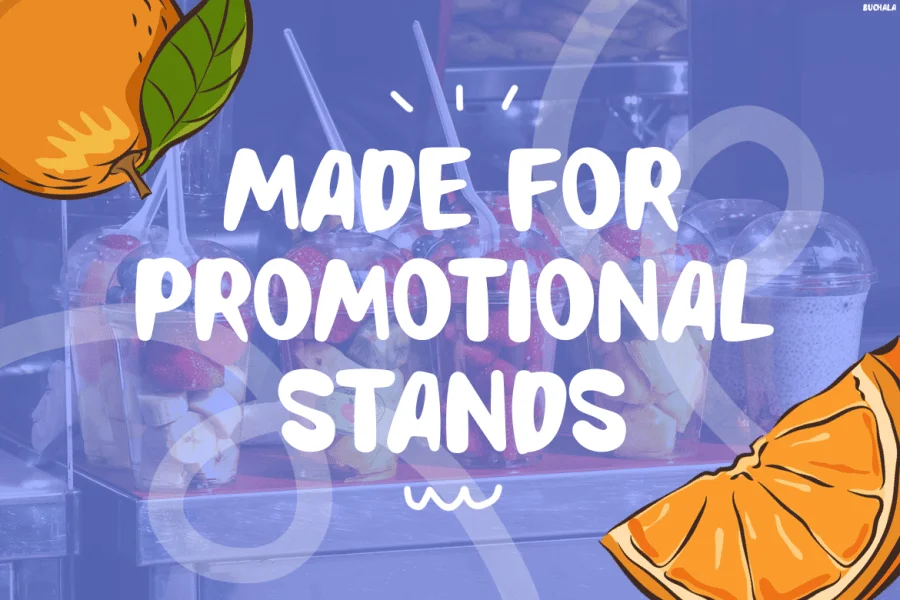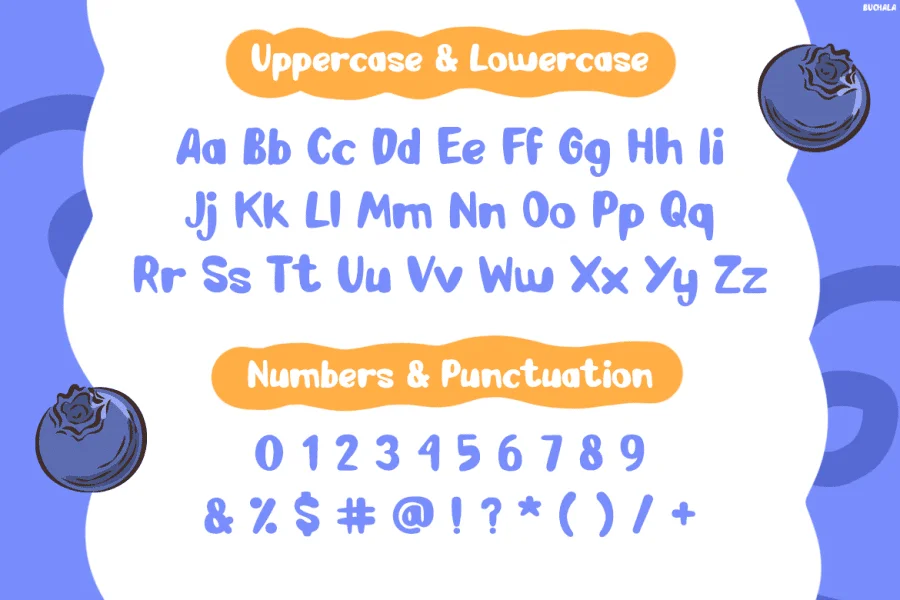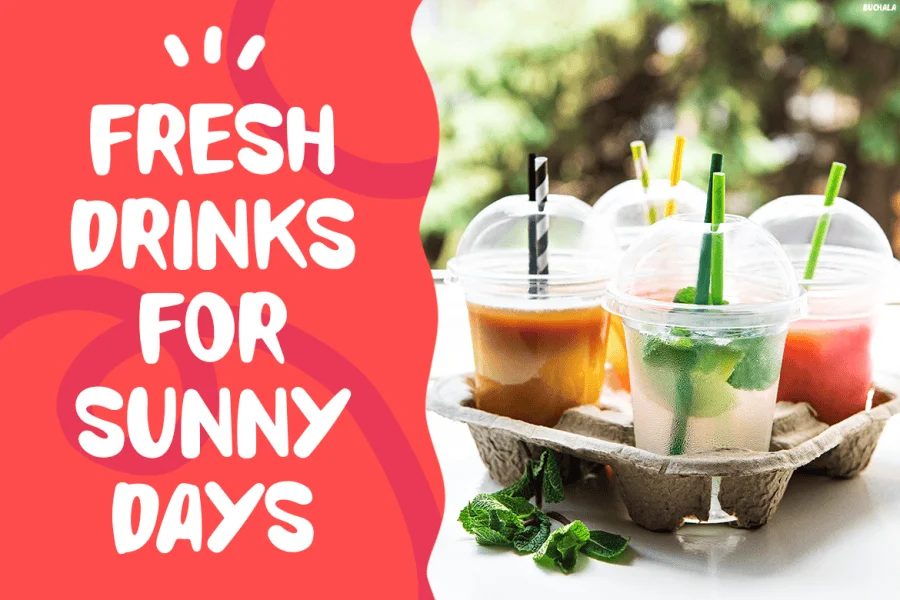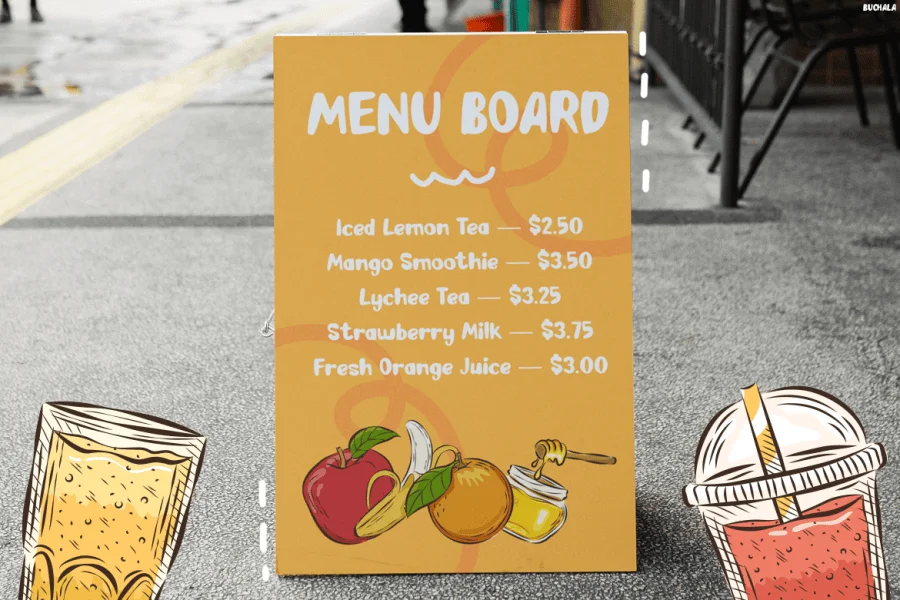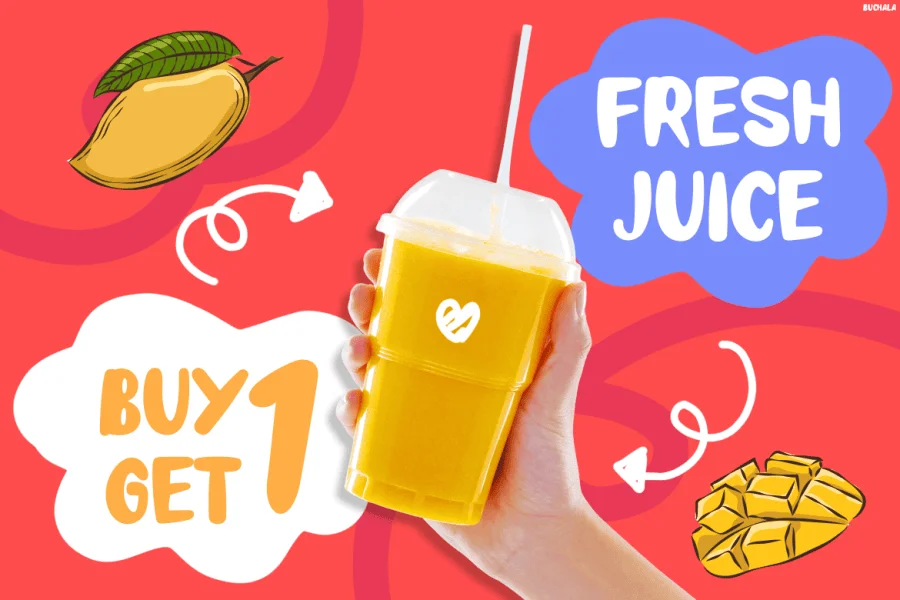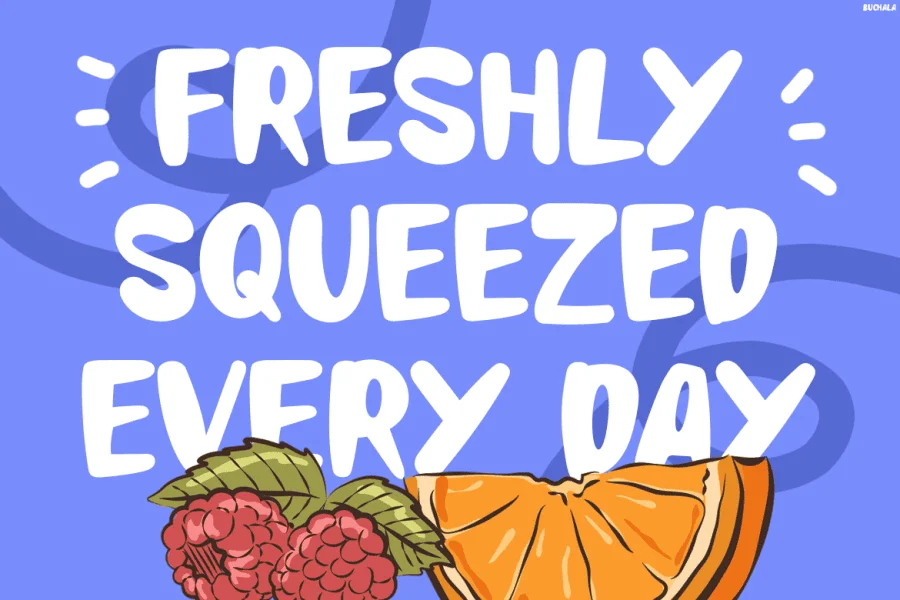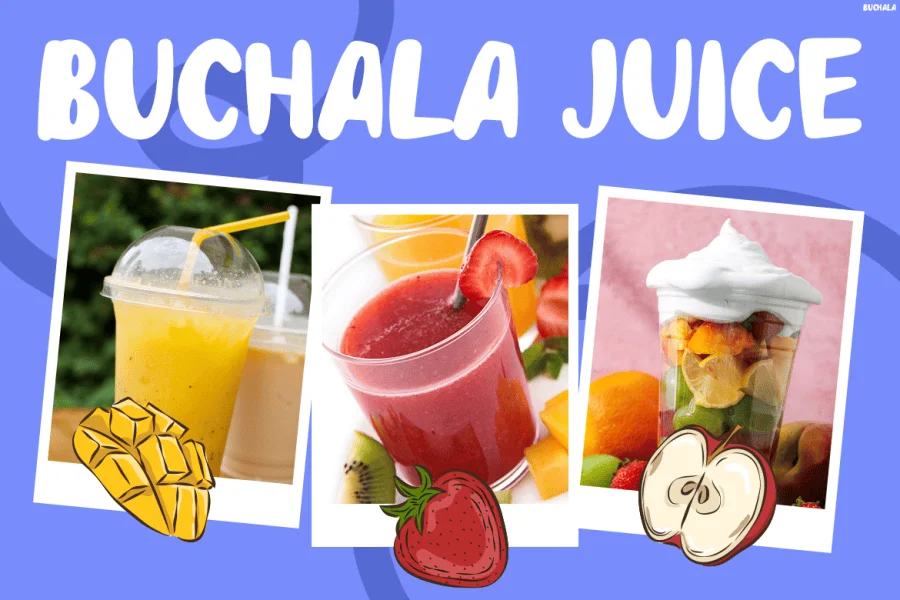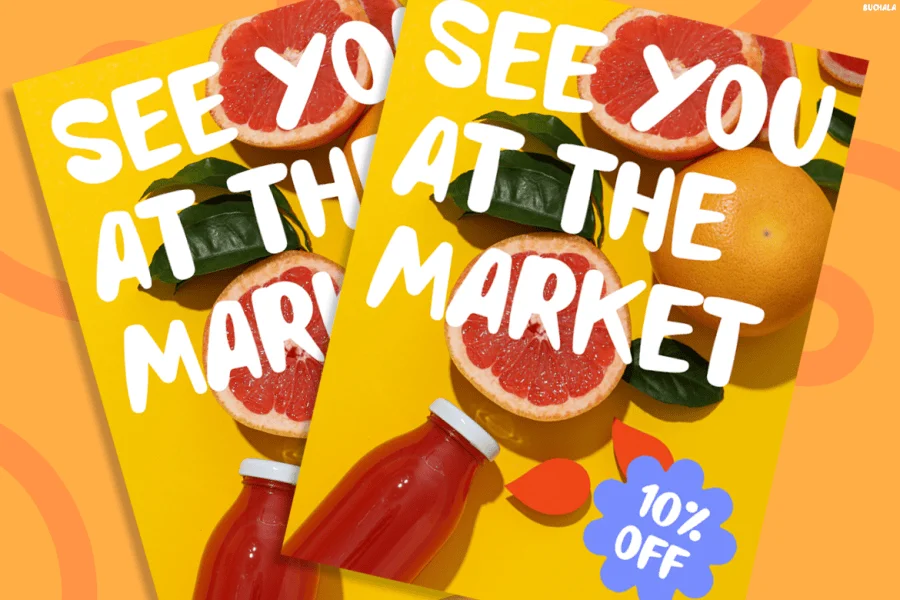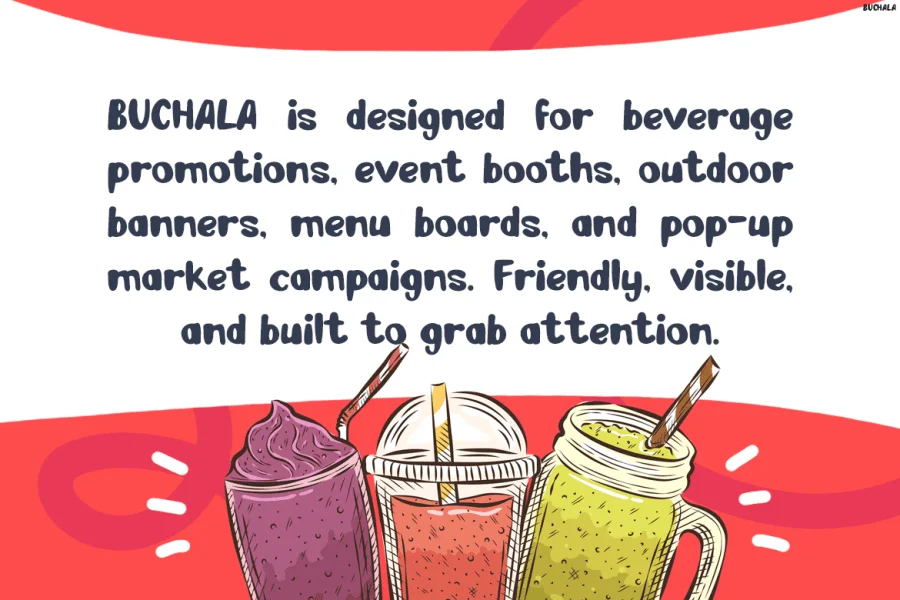
Buchala is a soft, hand-drawn sans-serif typeface that exudes warmth and casual energy. Characterized by its fluid, brush-like strokes and rounded, organic terminals, the letterforms possess a friendly, tactile quality. The overall construction is playful yet highly legible, featuring slightly irregular, soft-edged contours that mimic natural brush lettering. Its upright posture and generous x-height give it an approachable, open texture that feels both personal and inviting.
This typeface is exceptionally well-suited for vibrant branding of fresh juices, organic food packaging, and summer-themed promotional materials. Its soft, pillowy appearance pairs naturally with illustrative designs, hand-drawn graphics, and bright, sun-drenched color palettes, making it an excellent choice for farmer's market signage, cafe menus, and refreshing drink labels.